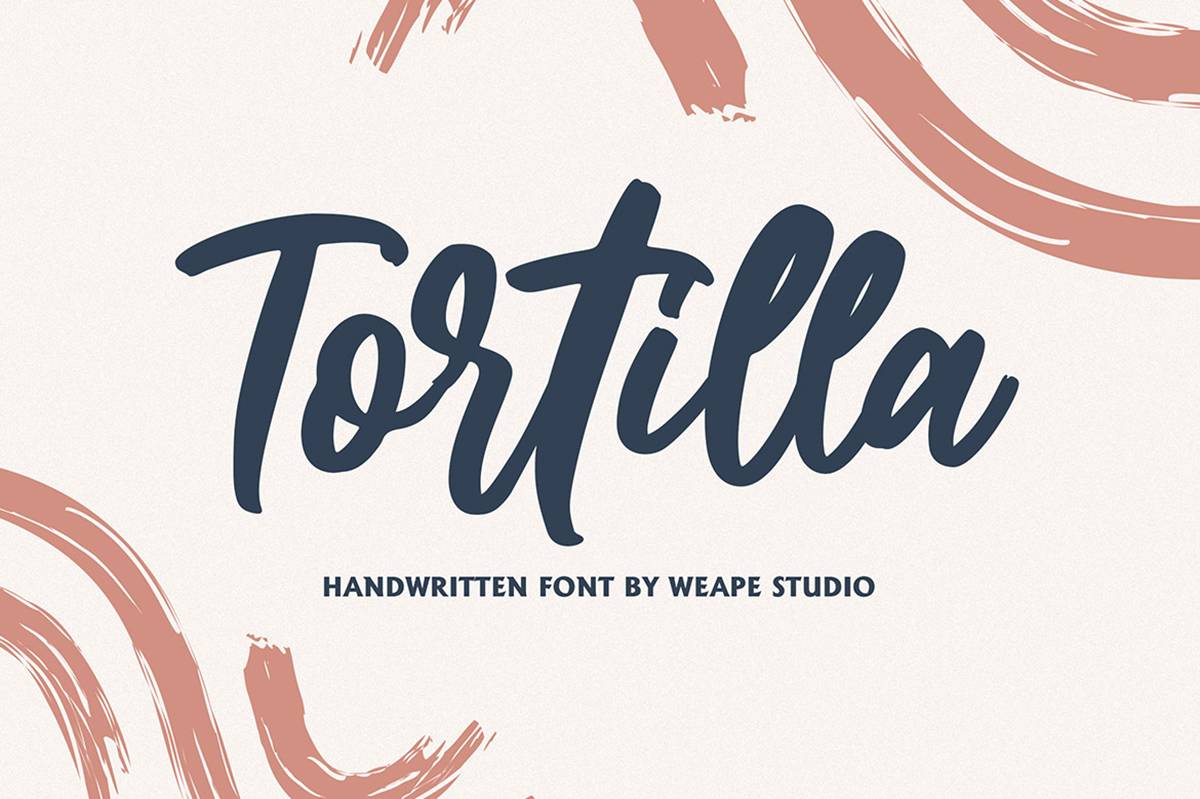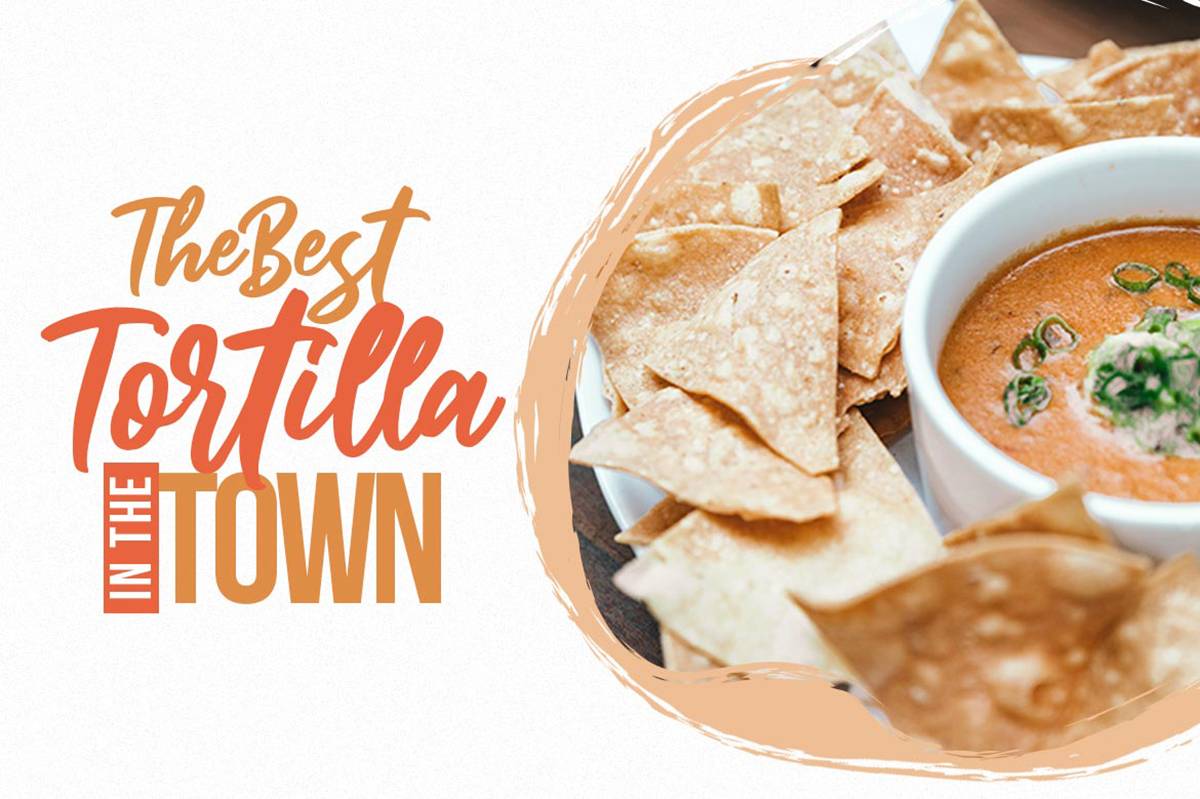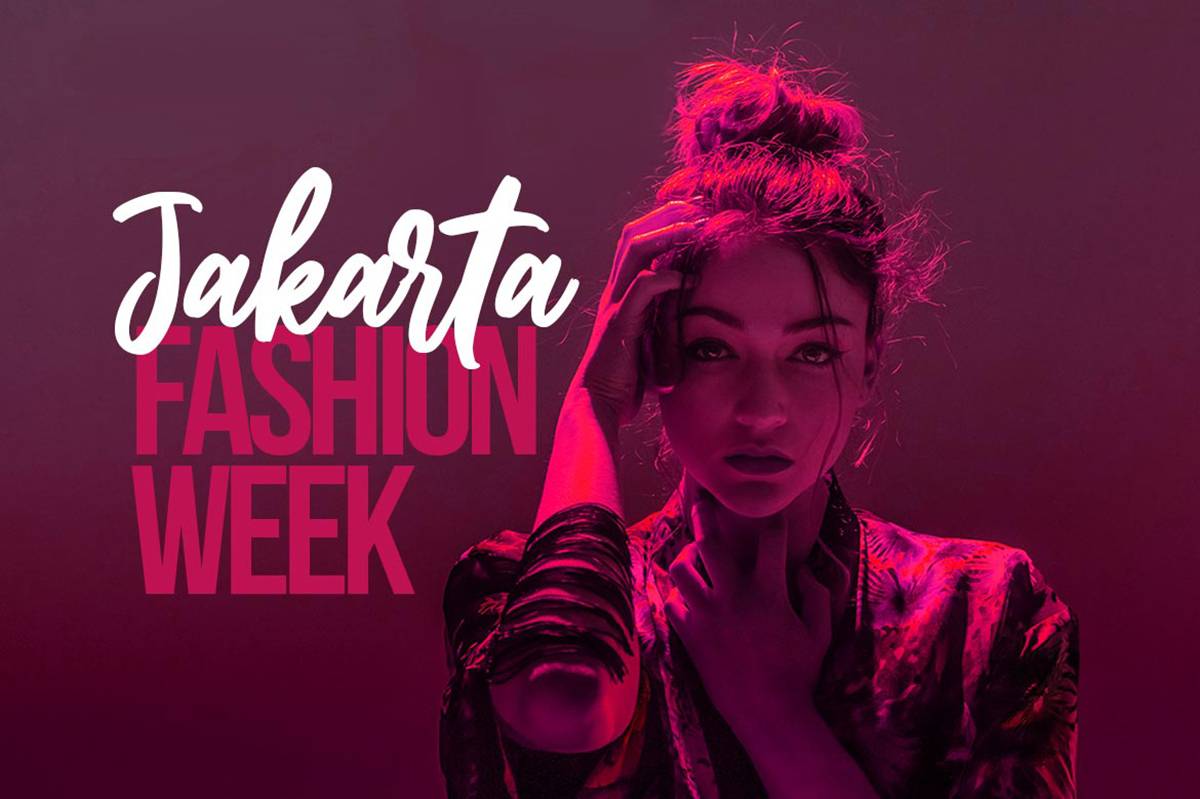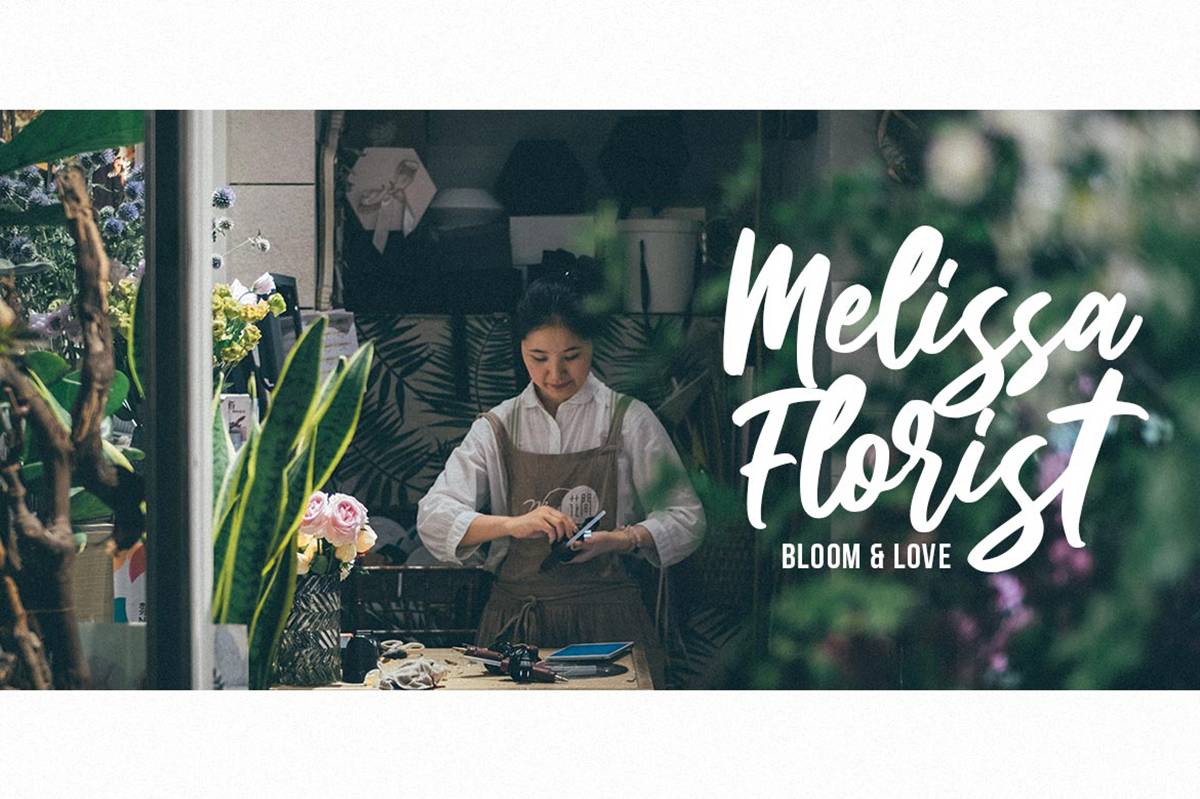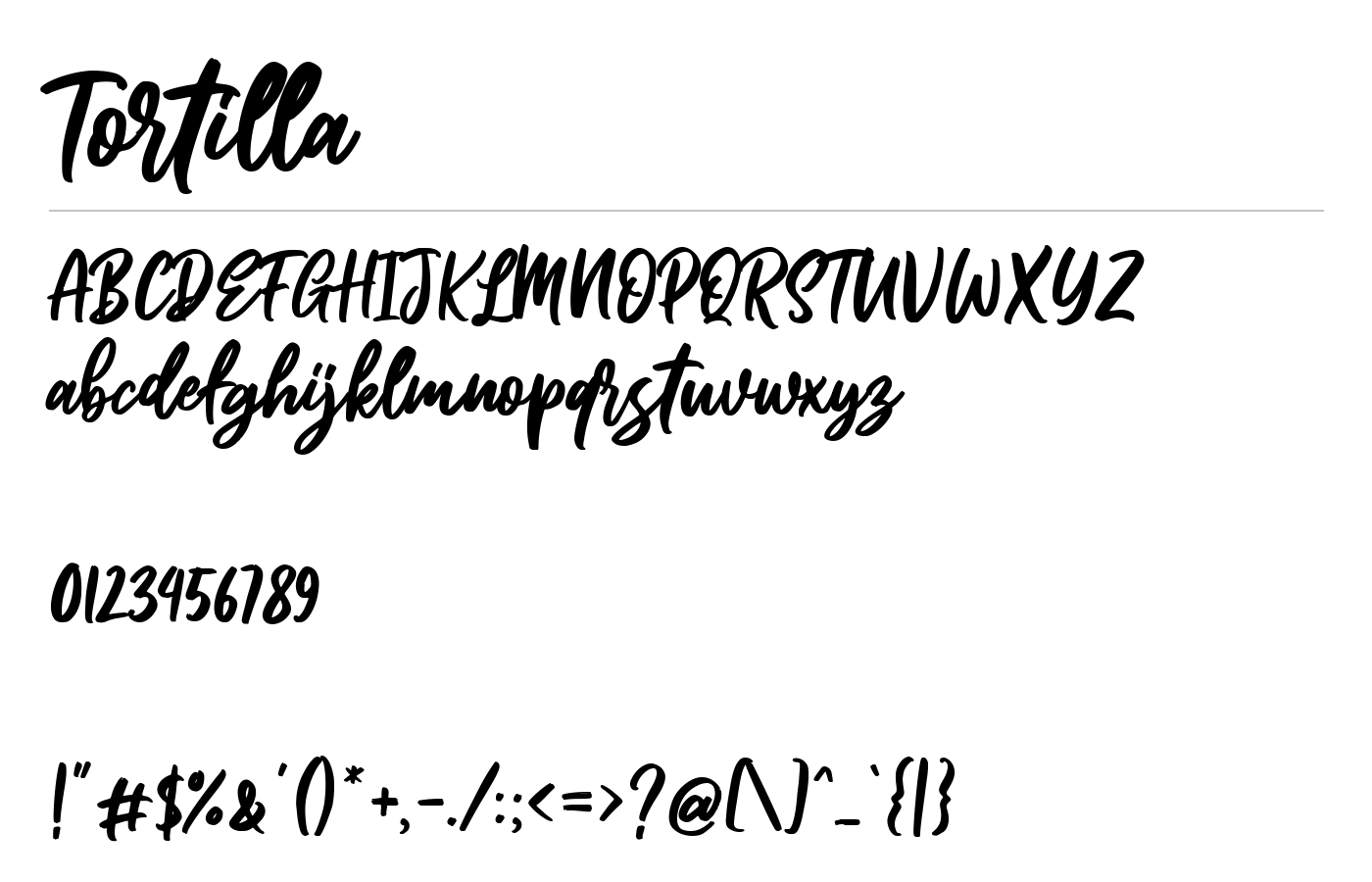
Tortilla is a lively brush script font that showcases a casual, handwritten style with medium weight and a playful yet elegant flair. Its flowing strokes and slightly condensed letterforms give it a natural, energetic feel perfect for adding a personal touch to branding, invitations, and creative projects. This font works beautifully for headlines, logos, and packaging where a warm, friendly, and expressive personality is desired.
Tortilla Font
About Tortilla Font
| Font family | Tortilla Font |
| Release date | 2019-08-07 |
| Designer | Wahyu Andi |